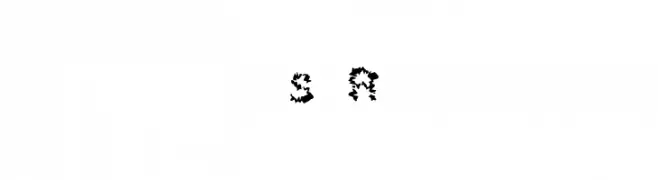
A dynamic, shattered font with jagged edges and a fragmented appearance.
A bold, shattered glass effect font with a dynamic and decorative style.
A bold, distressed font with a shattered effect, perfect for edgy designs.